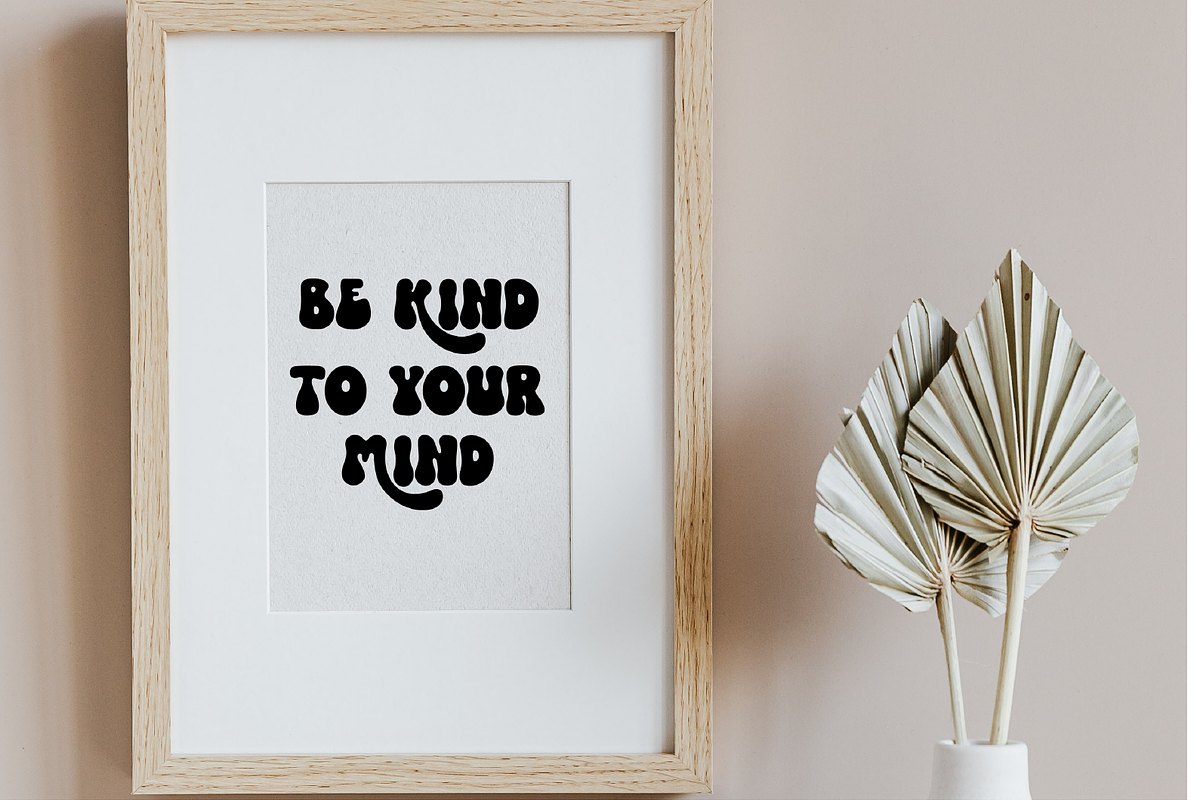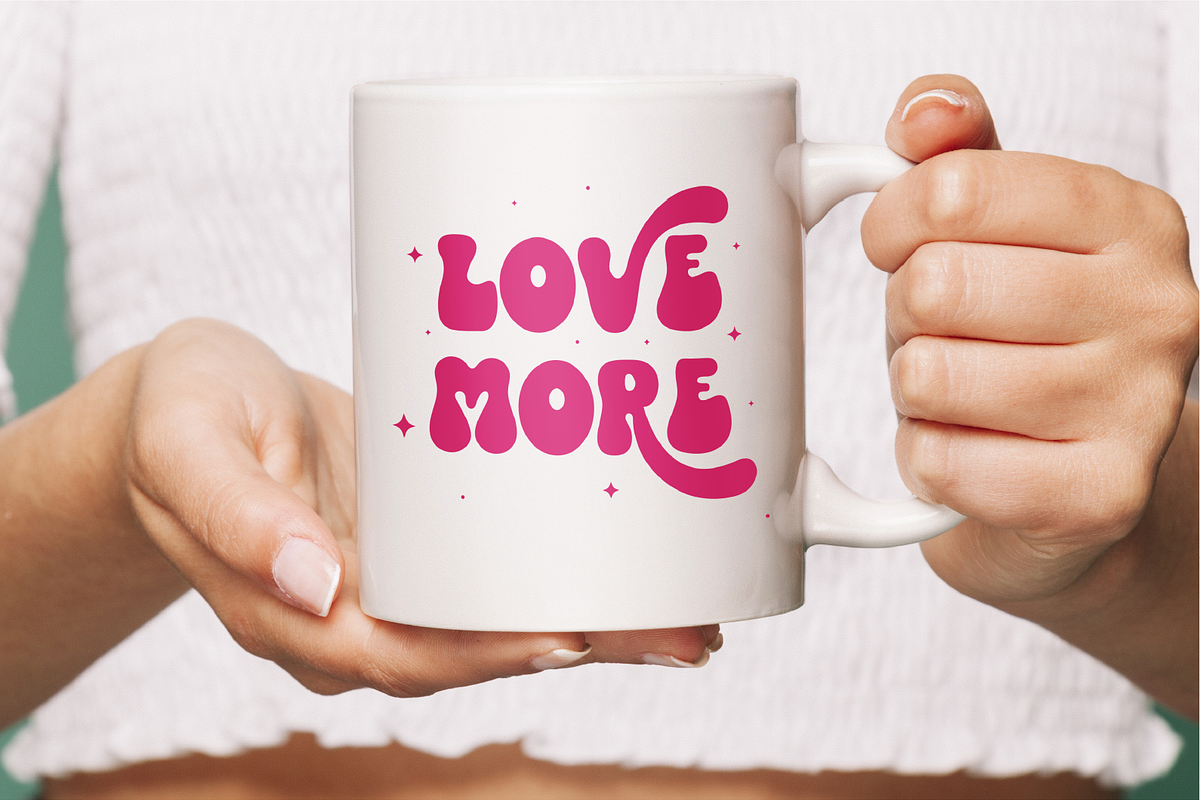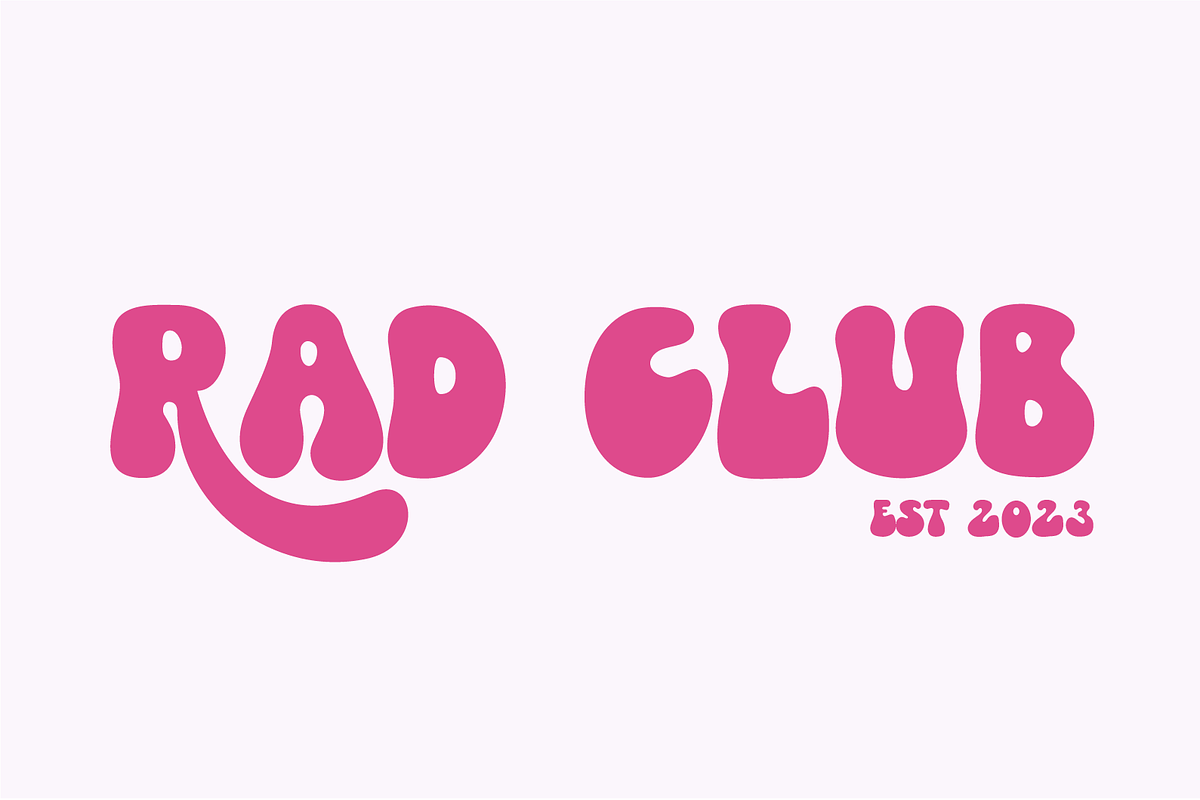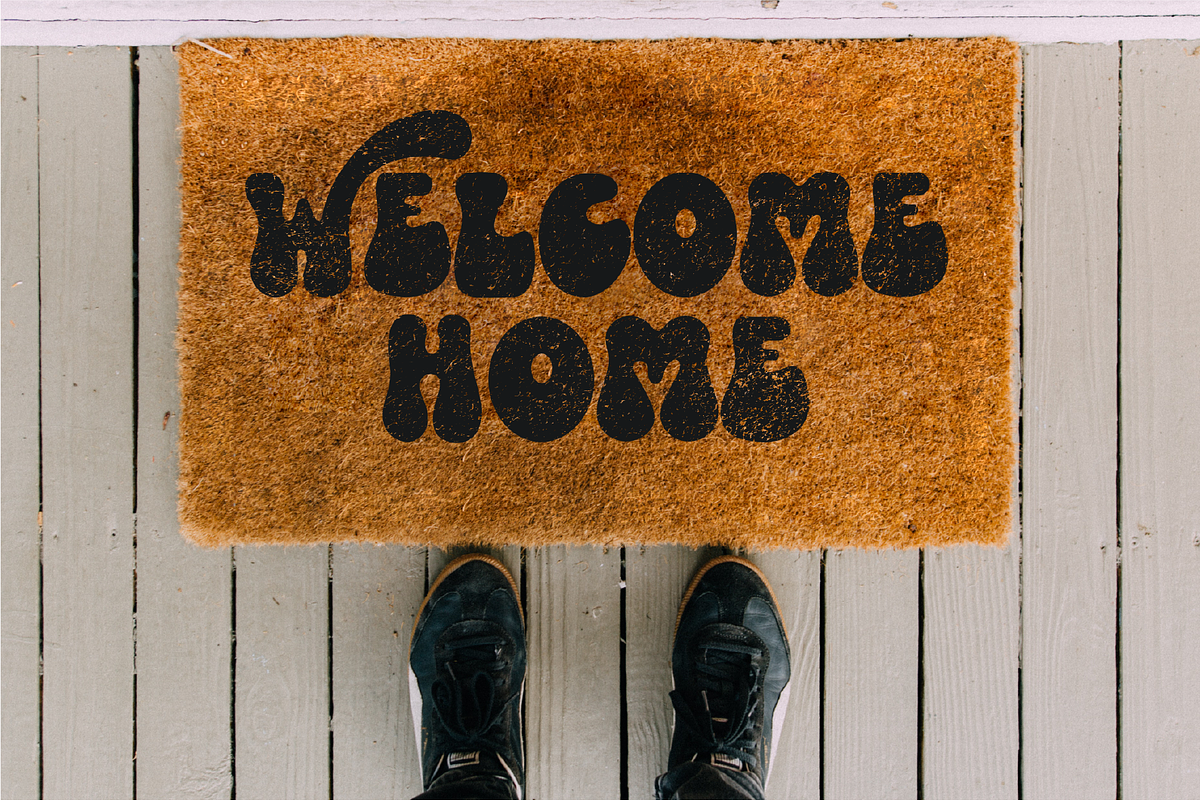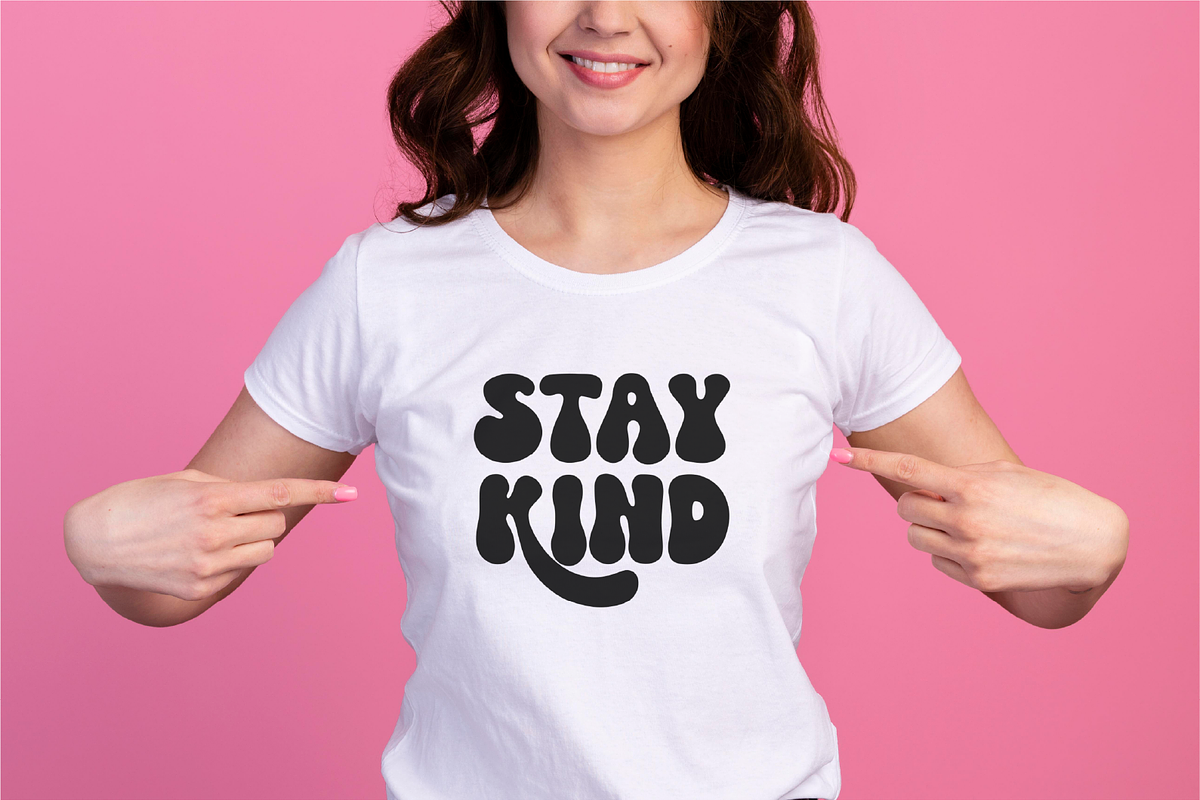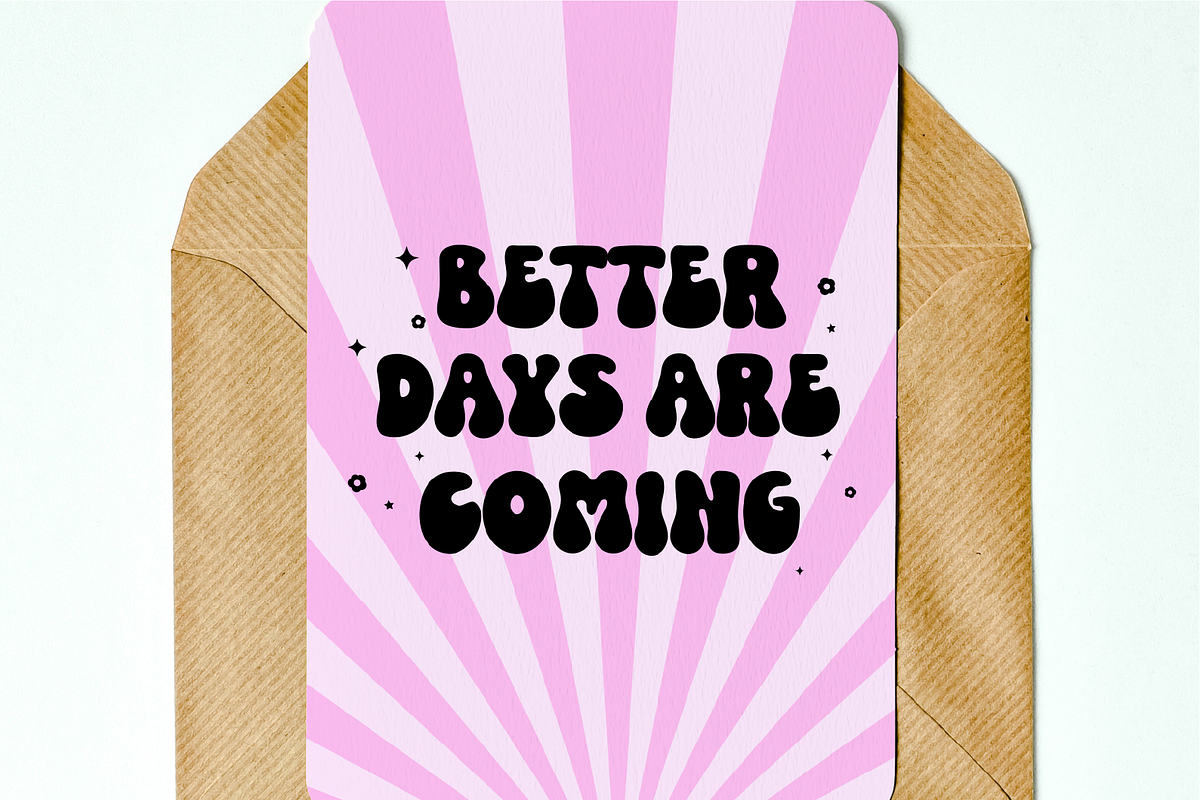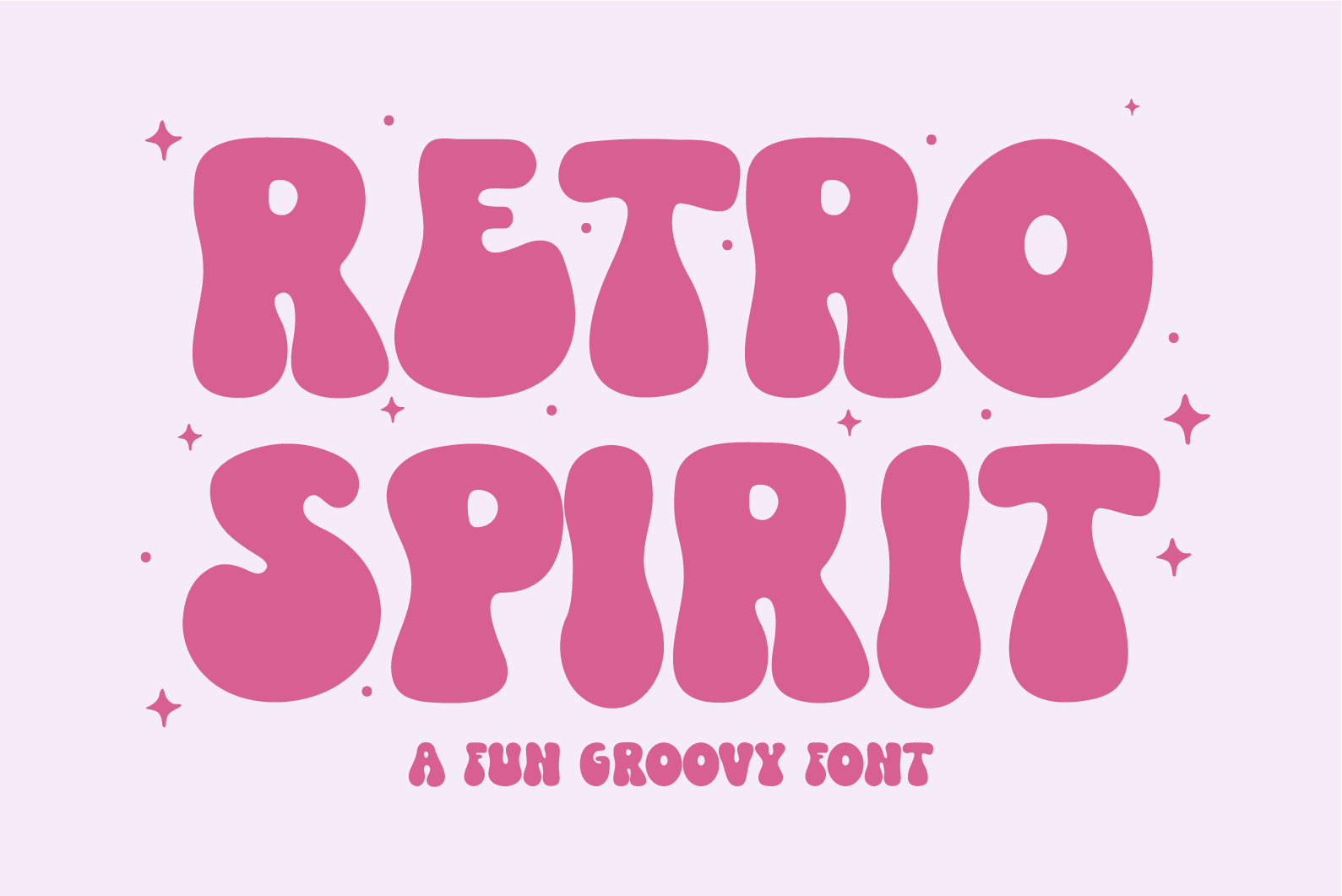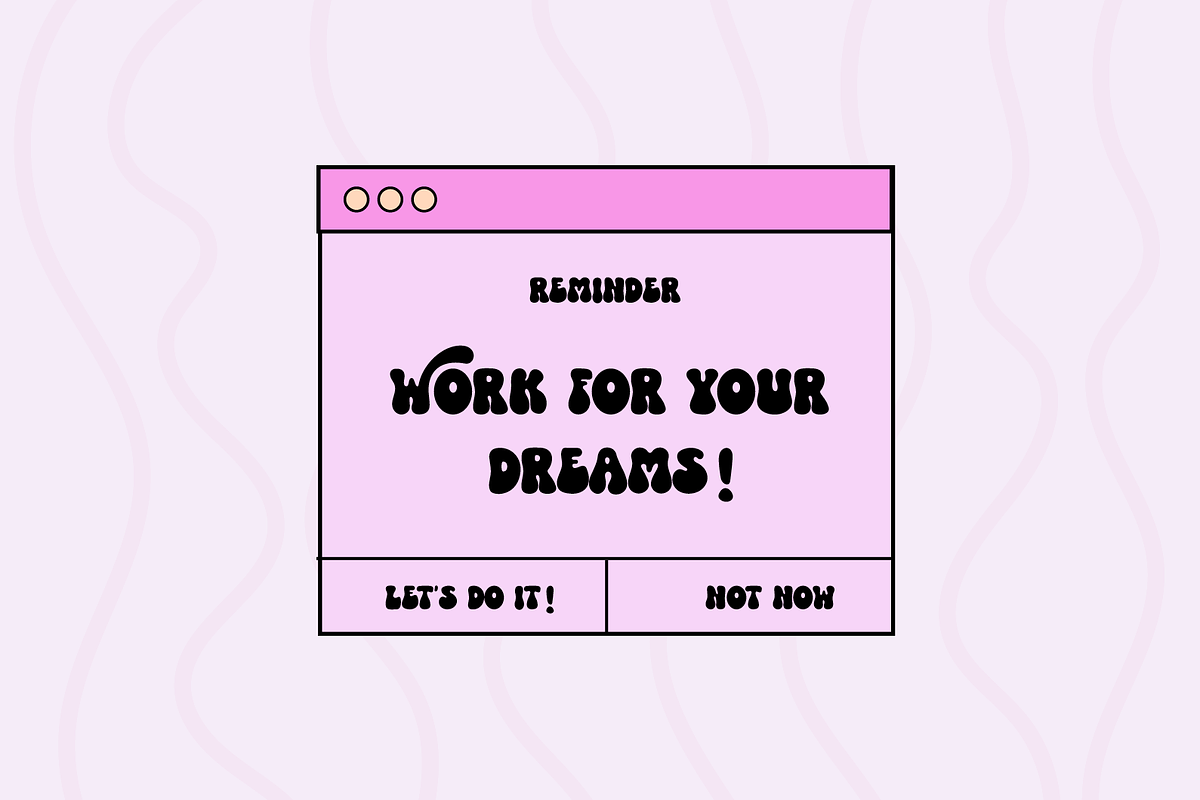
Retro Spirit A Fun Groovy Font
Get ready to embrace the groovy vibes with our cute and fun font Retro Spirit! This font is perfect for a wide range of uses, from apparel and posters to mugs and birthday party invitations.
It's even compatible with Procreate for all your digital design needs. Thanks to its stylistic alternates, let your creativity flow and add a touch of playful charm to your projects with this groovy font!